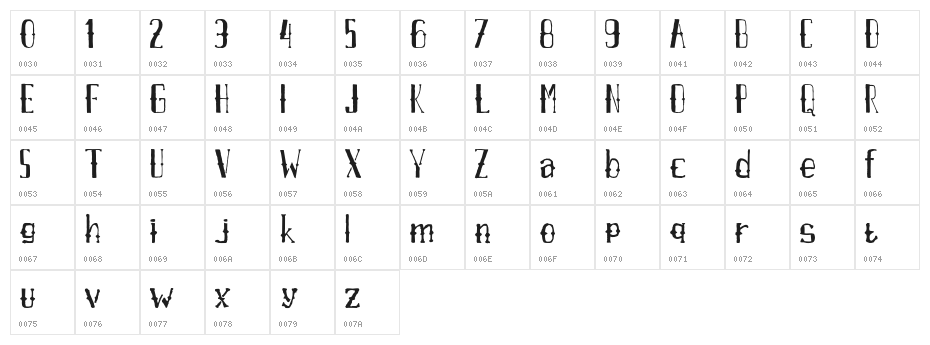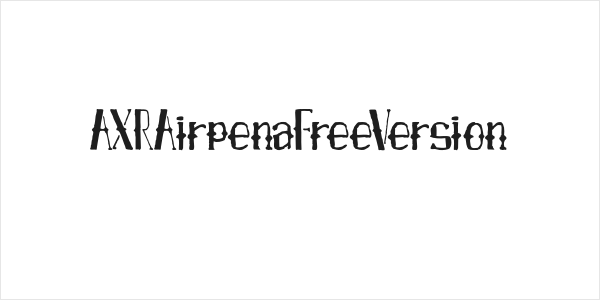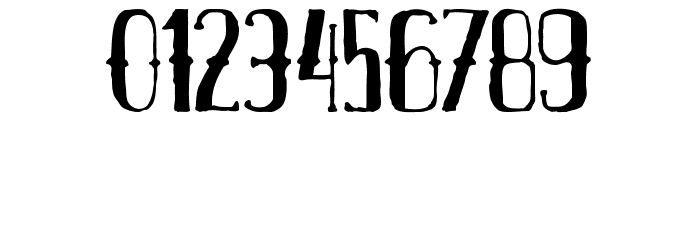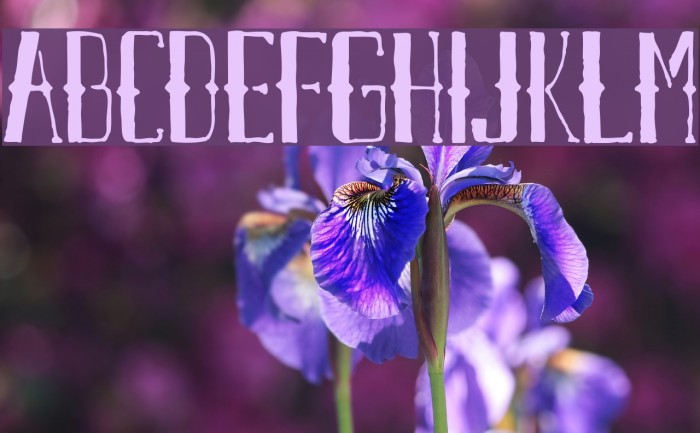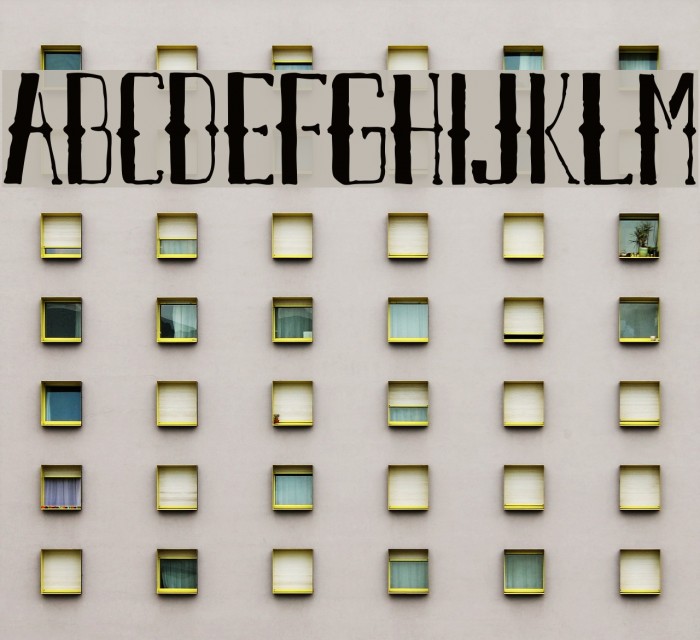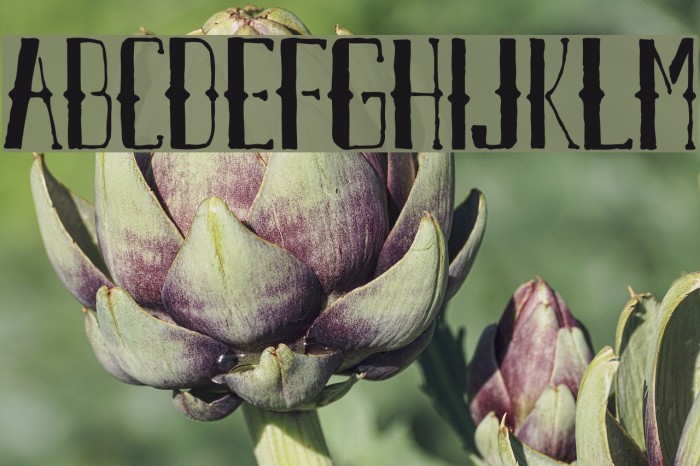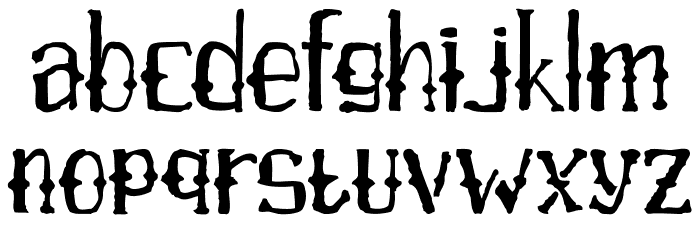
AXRAirpenaFreeVersion Font
AXRAirpenaFreeVersion Description
This font features a unique and artistic design with a distressed, grungy appearance. The characters are bold and have an irregular, hand-drawn quality that gives them a rustic and vintage feel. The uppercase letters are tall and narrow, while the lowercase letters maintain a consistent style with slightly more rounded edges. The numbers follow the same aesthetic, providing a cohesive look throughout. The special characters are creatively integrated, maintaining the overall theme. This font is ideal for projects that require a bold, eye-catching display with a touch of nostalgia and creativity.
| Proposed Projects | Perfect for posters, album covers, branding, and any project needing a bold, artistic touch. |